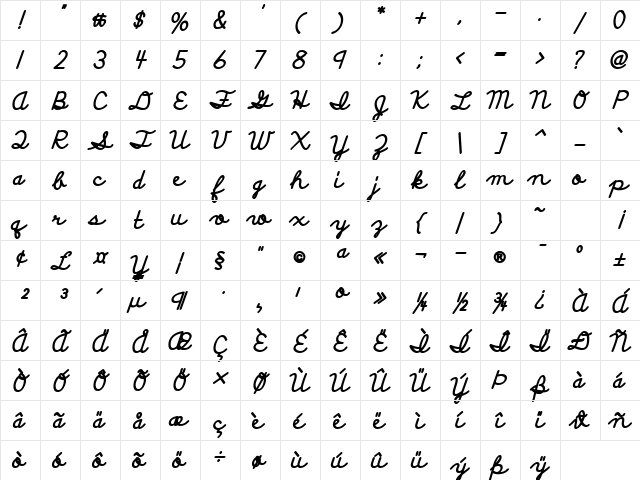
Discipuli Britannica Bold Regular Free Font
Discipuli Britannica Bold Regular
Foundry: Peter Wiegel
Designer: Peter Wiegel
Design Context for Discipuli Britannica Bold
Discipuli Britannica Bold is a composed and adaptable typeface that performs quietly and consistently across a wide range of design contexts. Its bold stroke weight gives it real presence on the page.